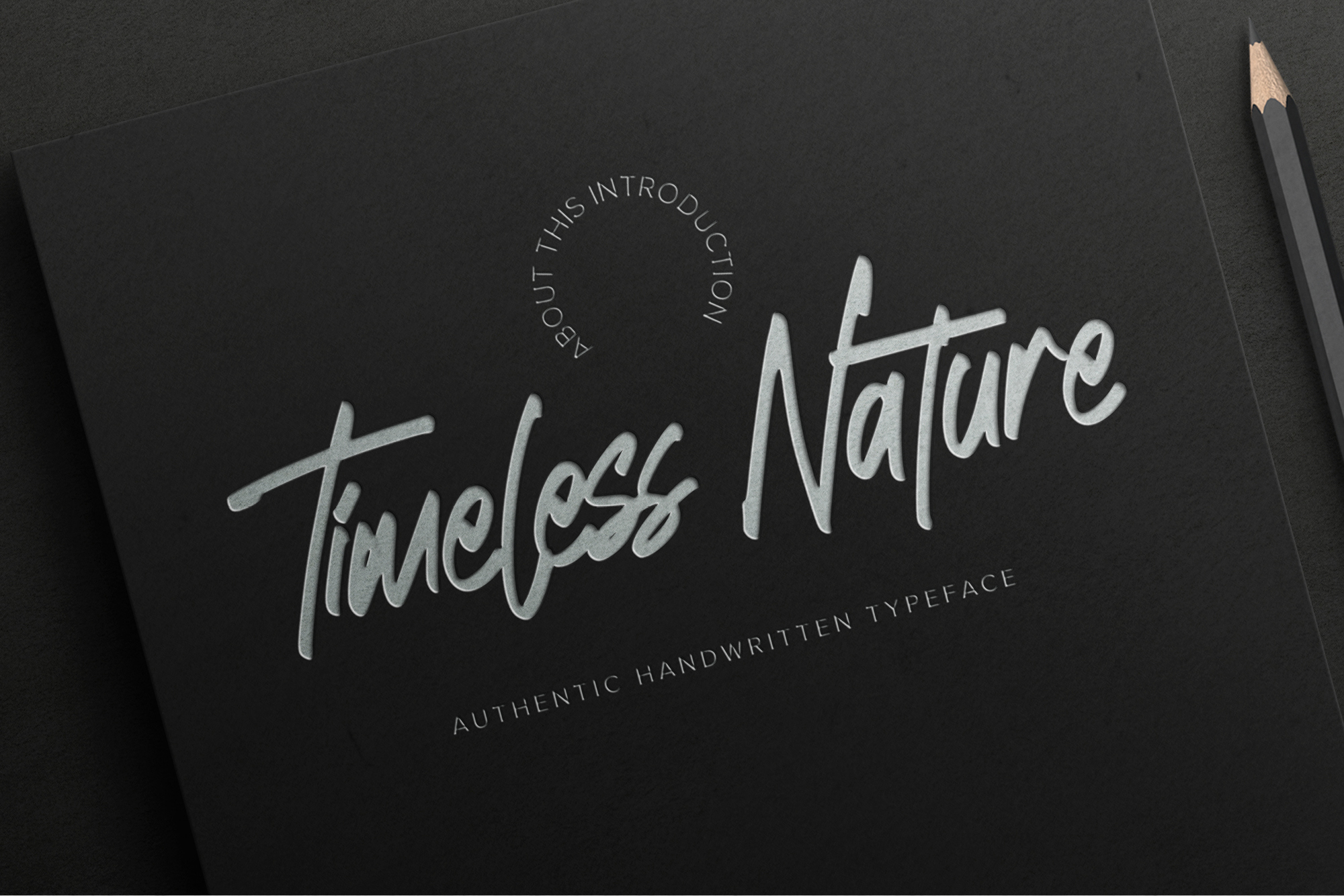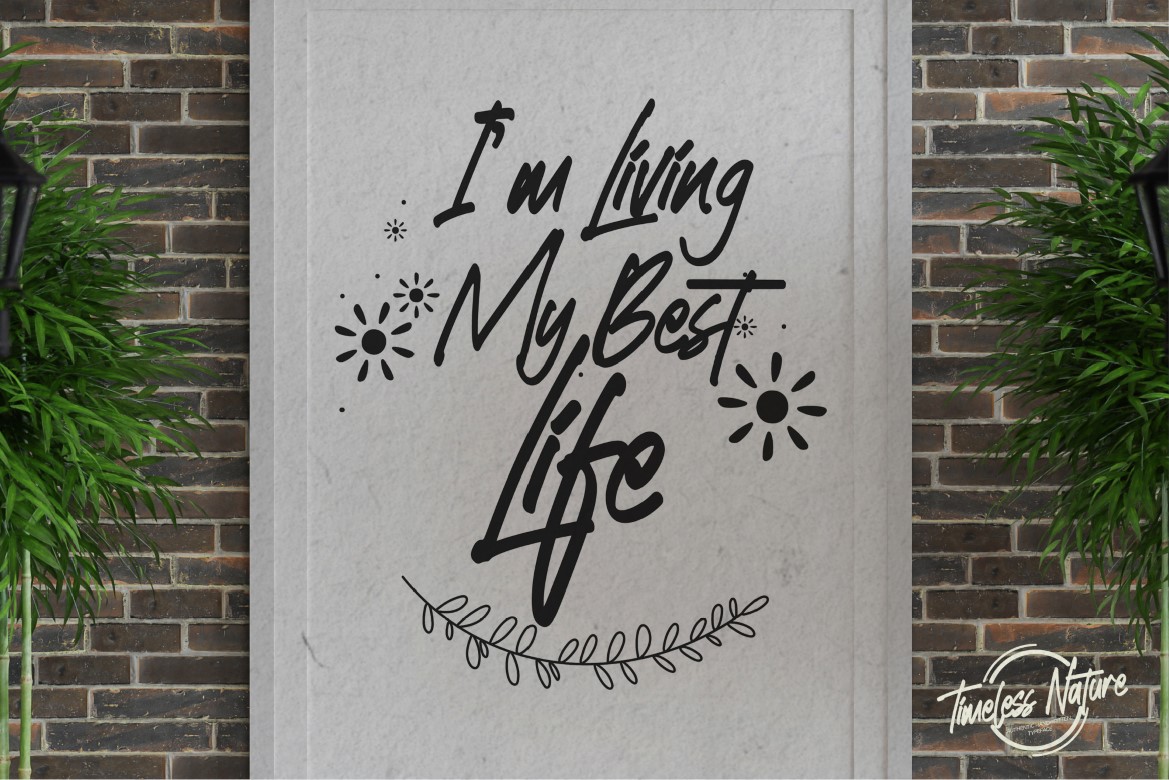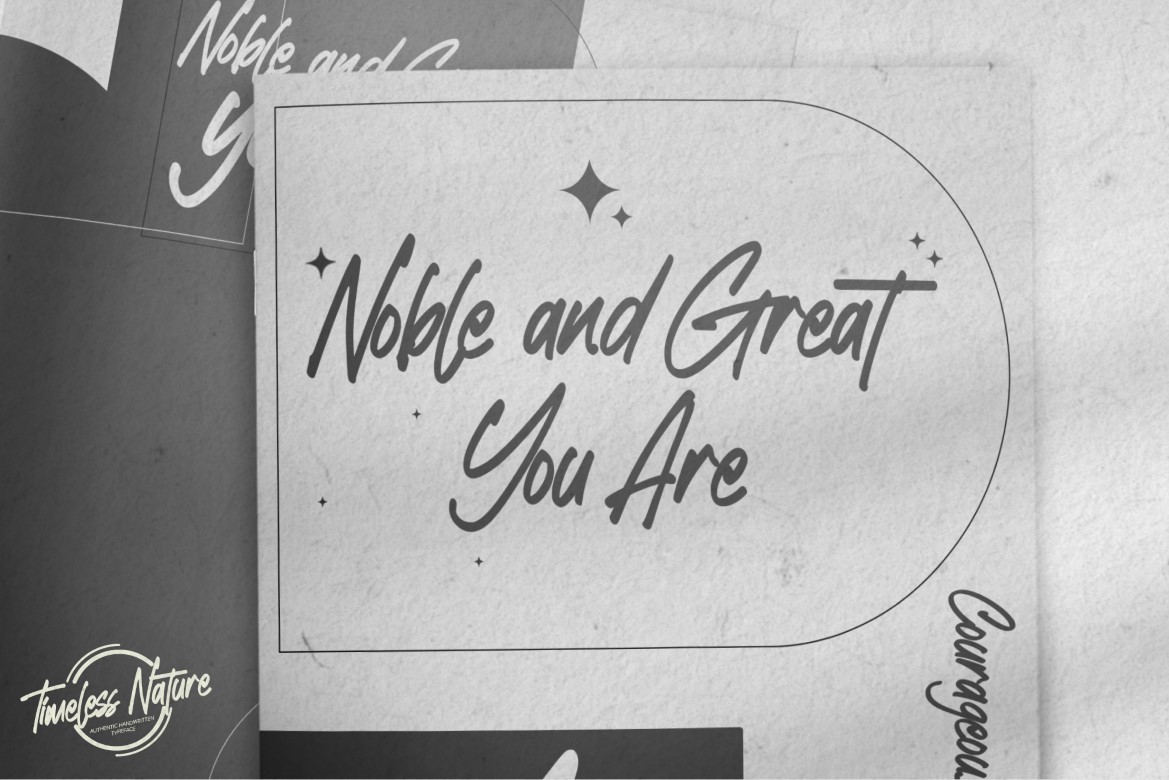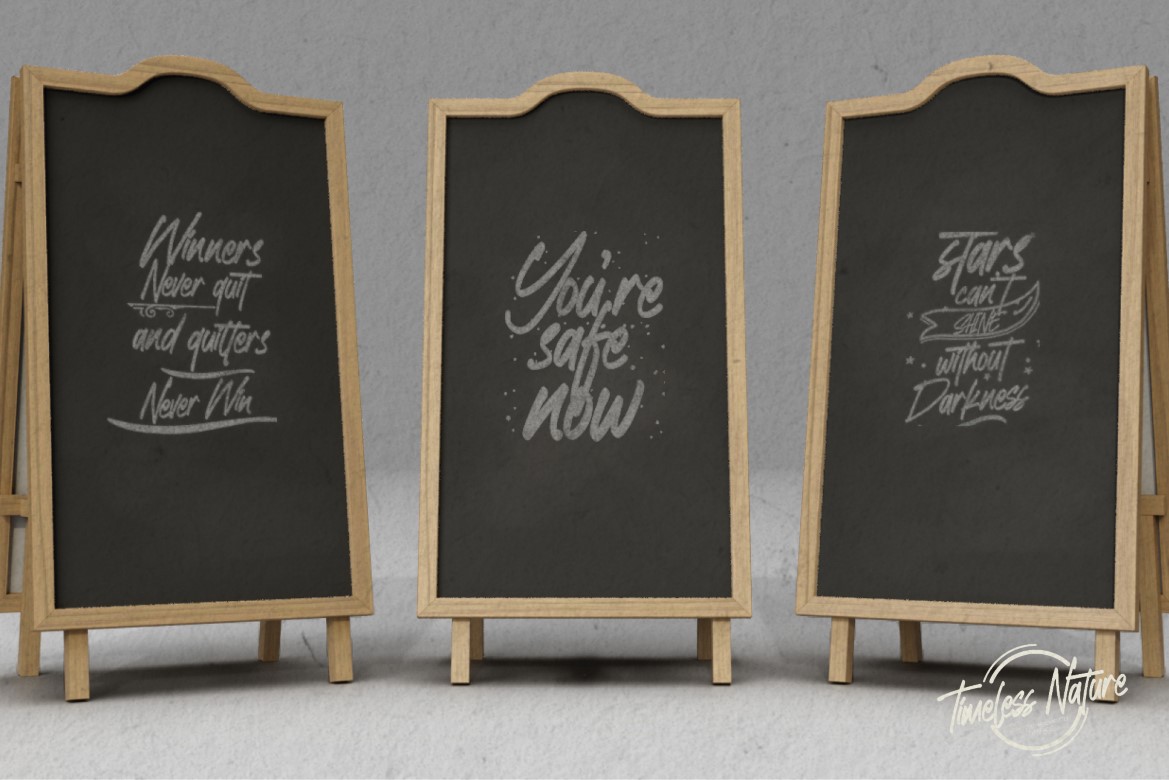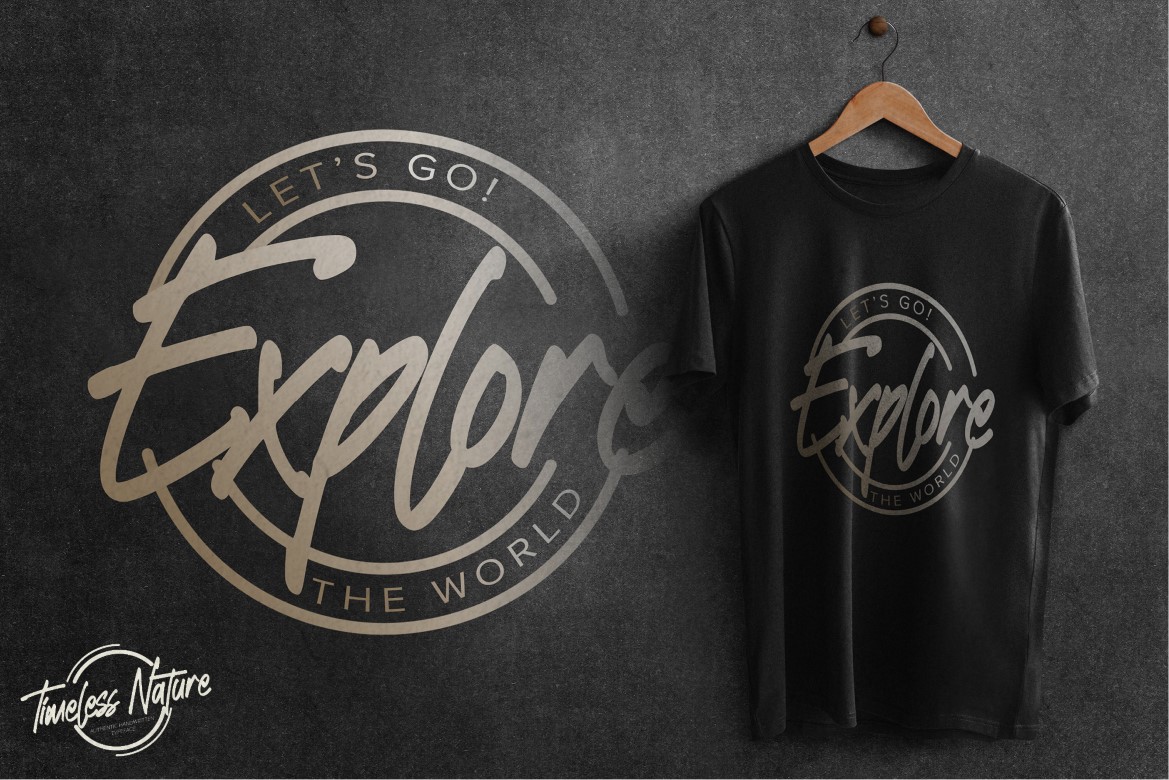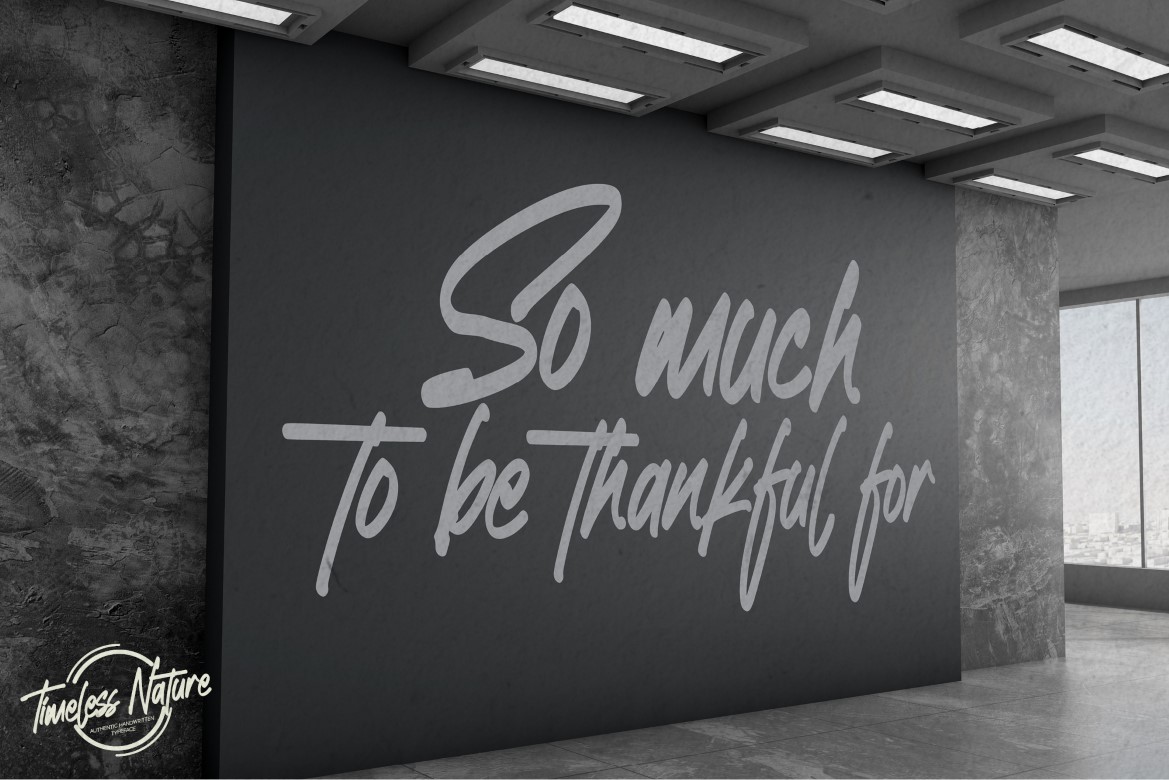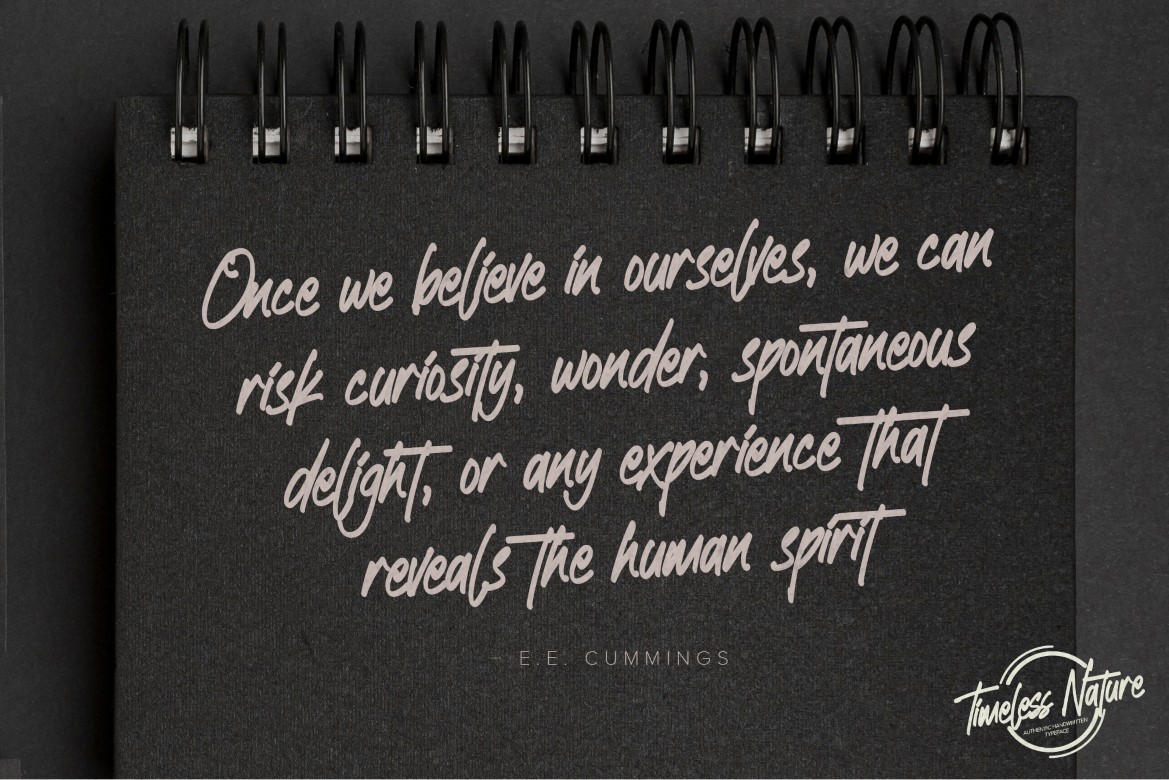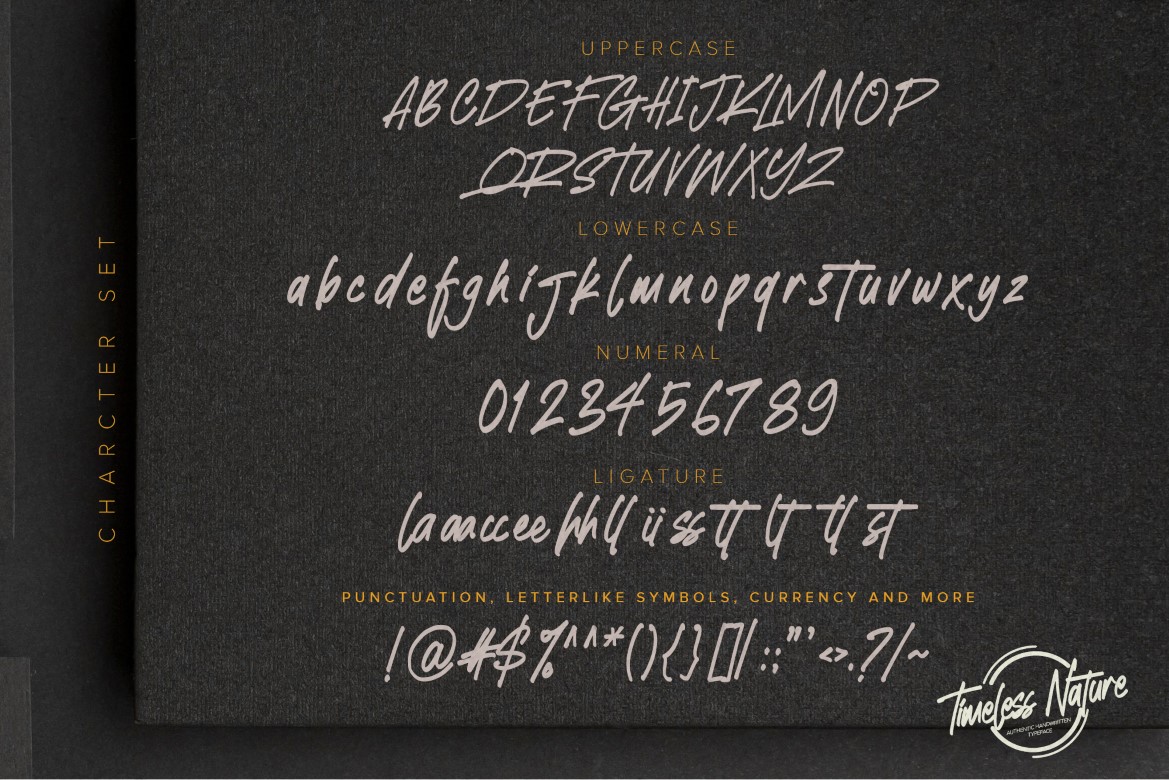
Timeless Nature – Authentic Handwritten Typeface ,Playful Craft Font Display Font is an natural that is written casually and quickly.
That is why Timeless Nature has a authentic , and strong characteristic more natural look. You can activate Ligatures and Alternates glyphs OpenType panel.
Timeless Nature Perfect for designs, branding projects, Logo design,Quotes product packaging and another Project that require cool display font.